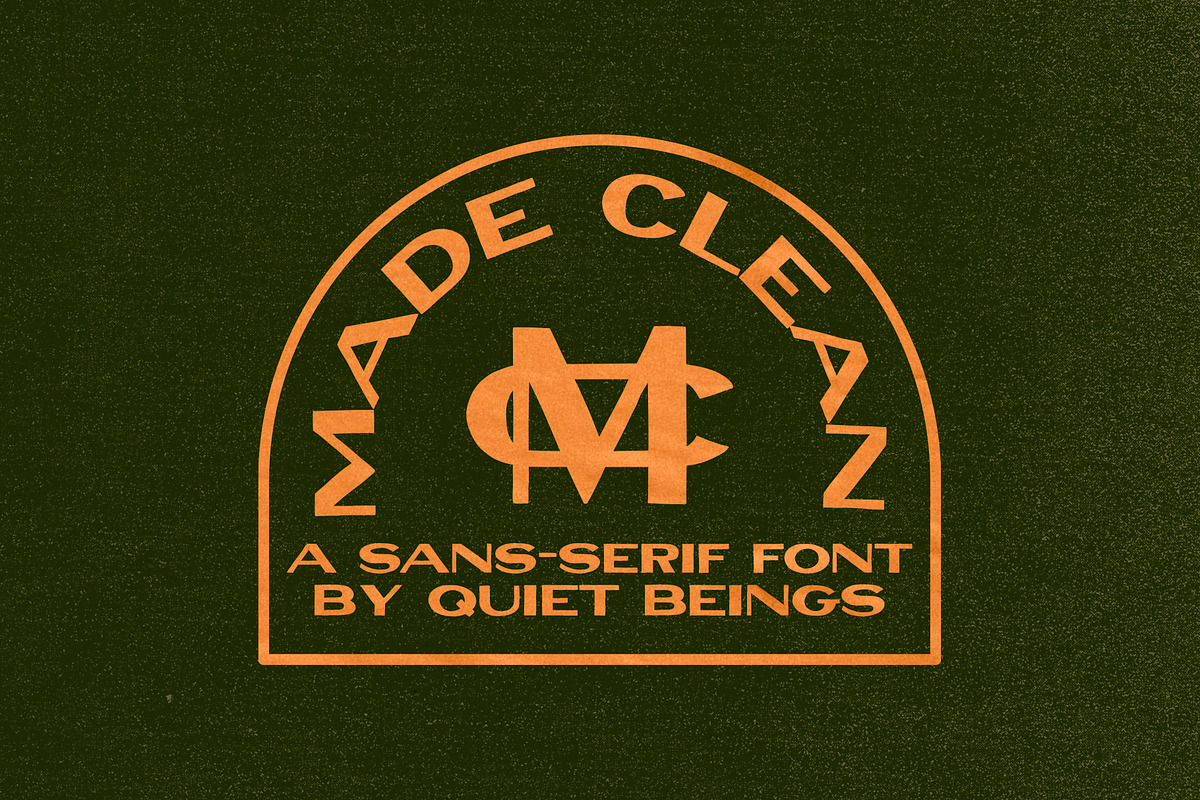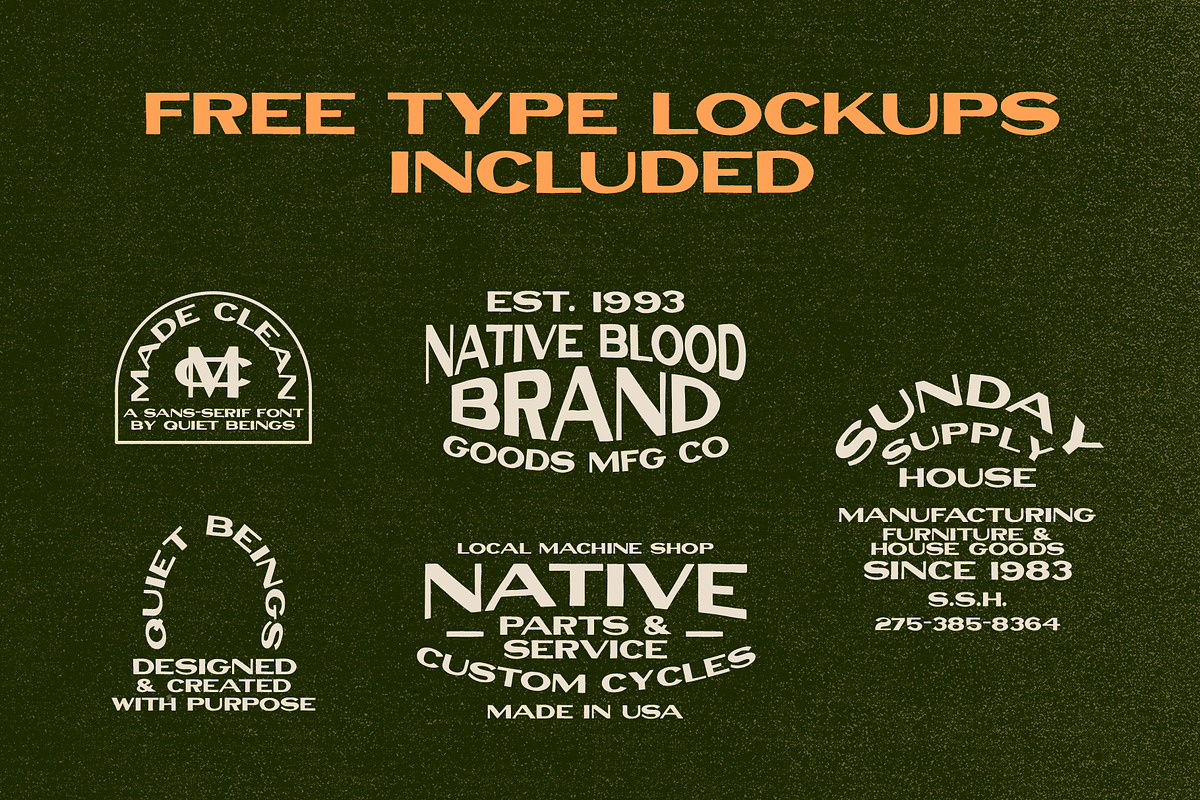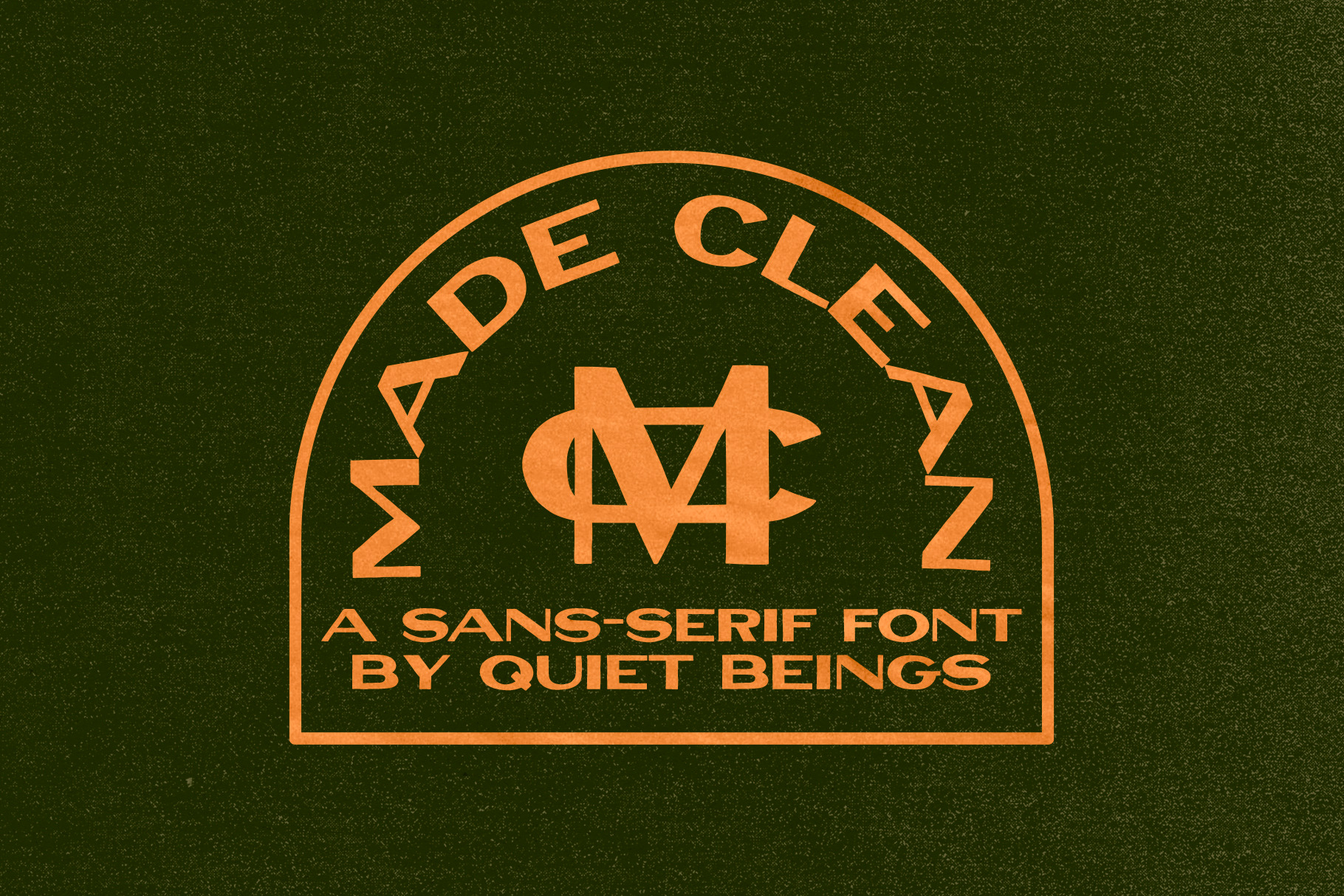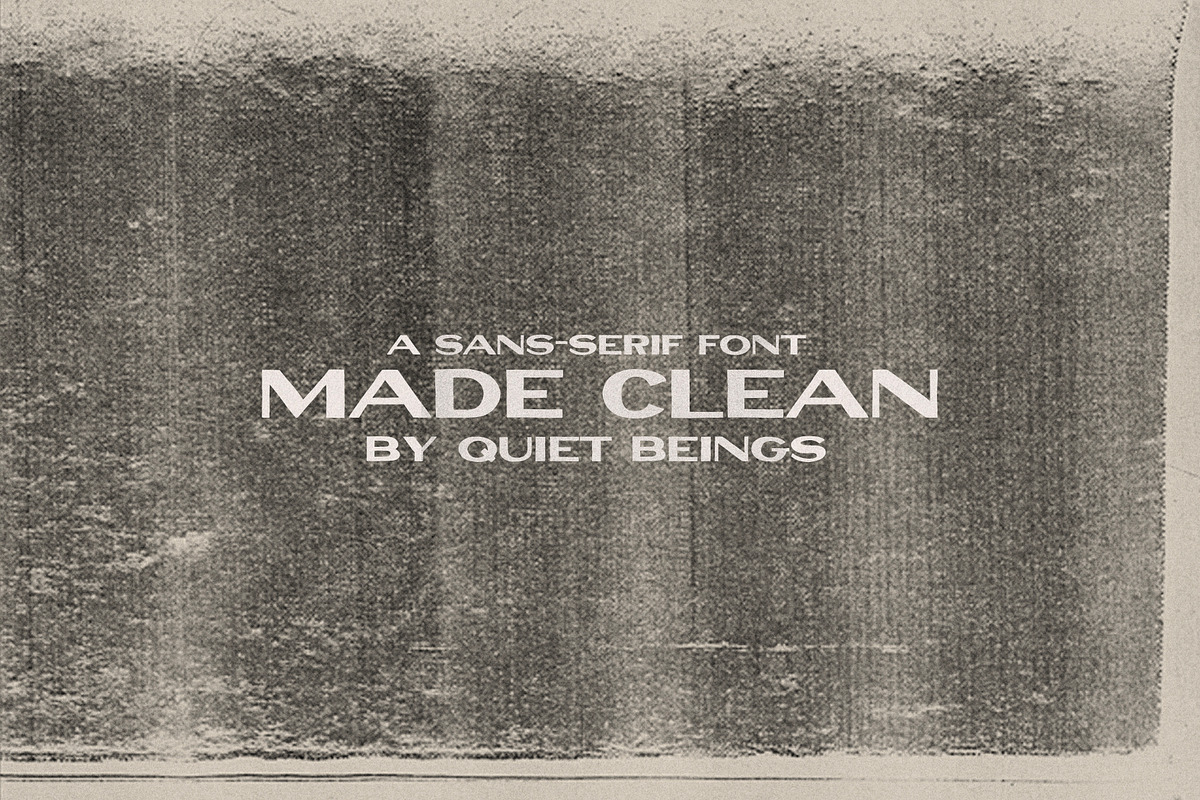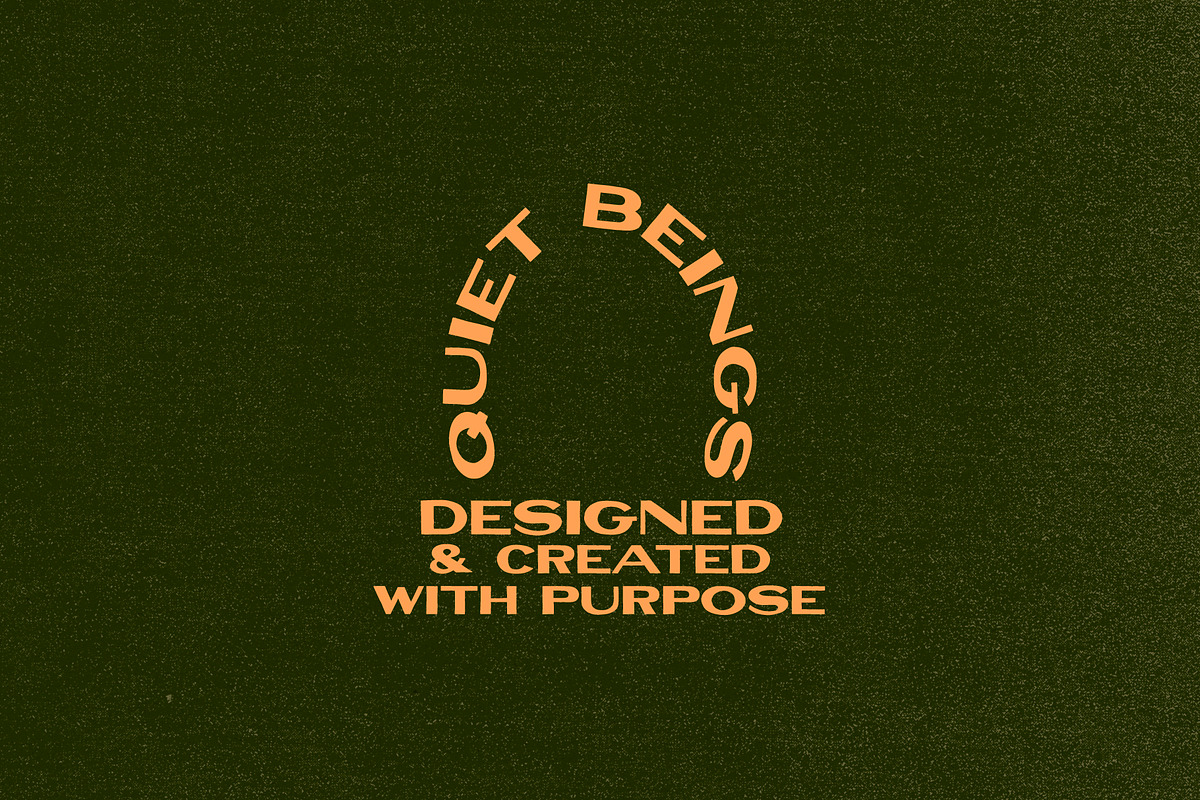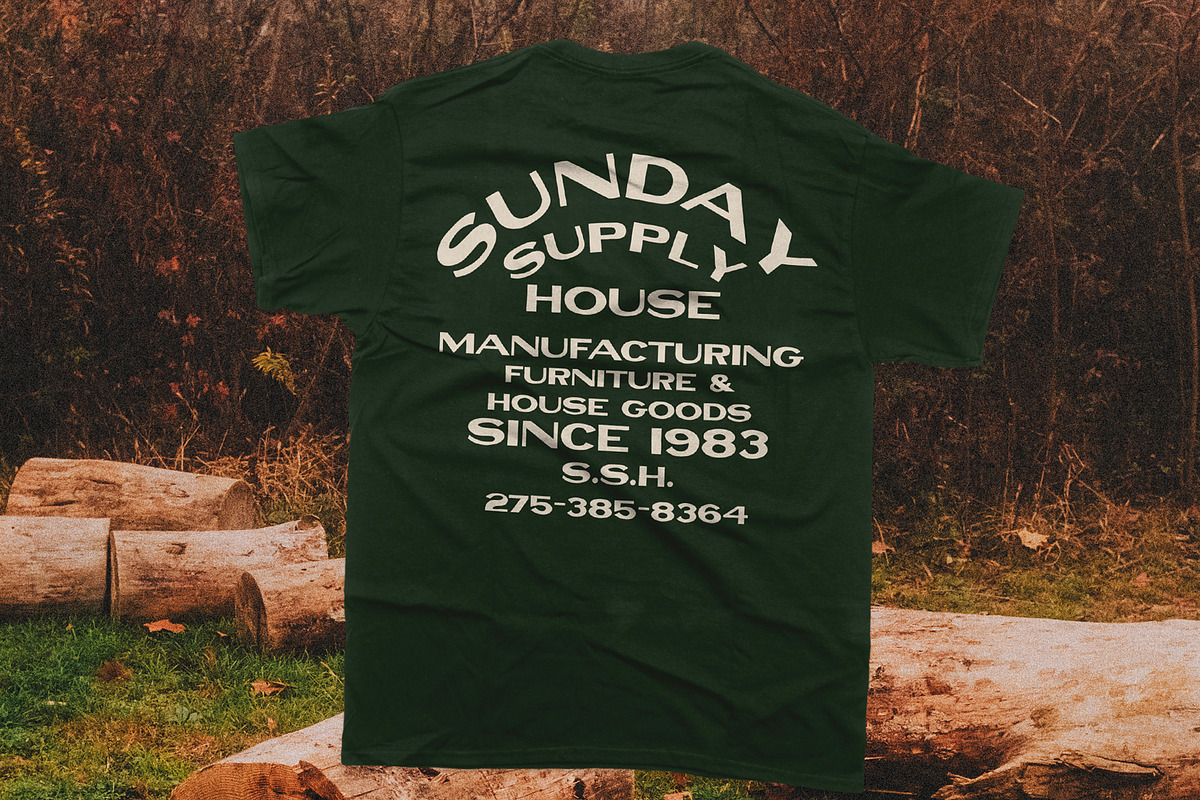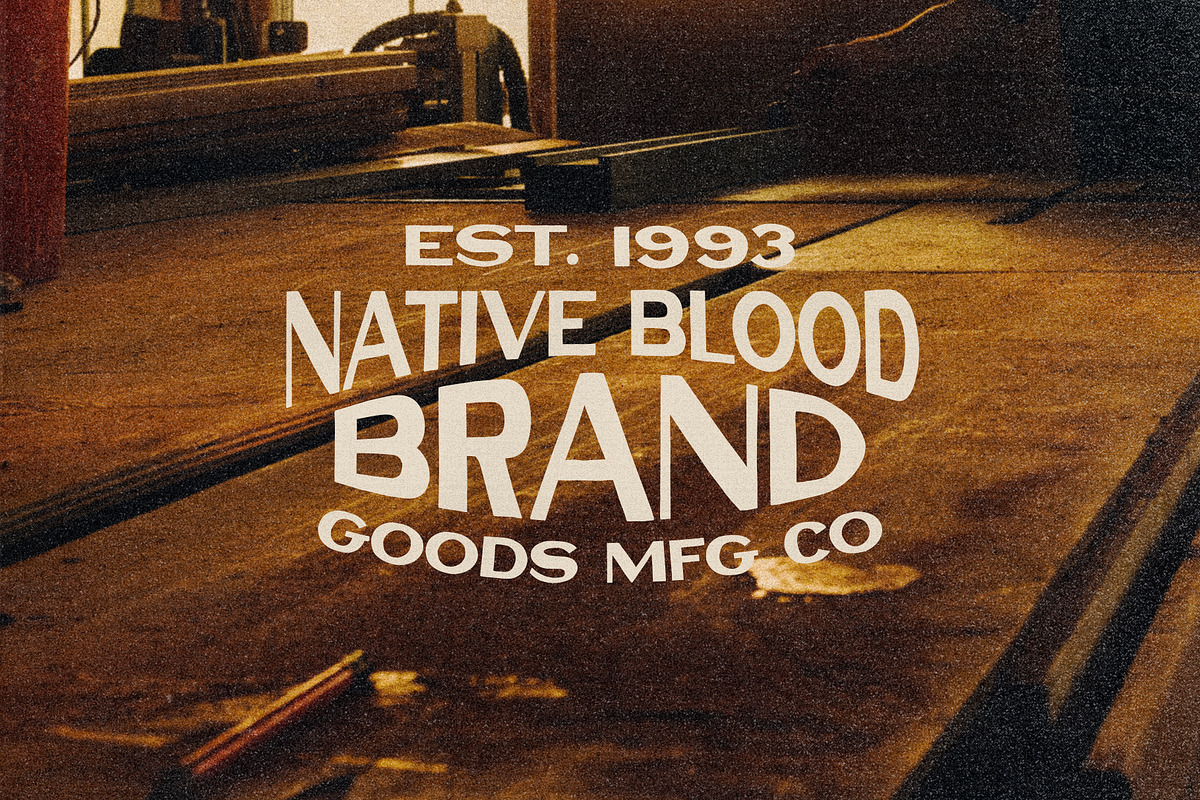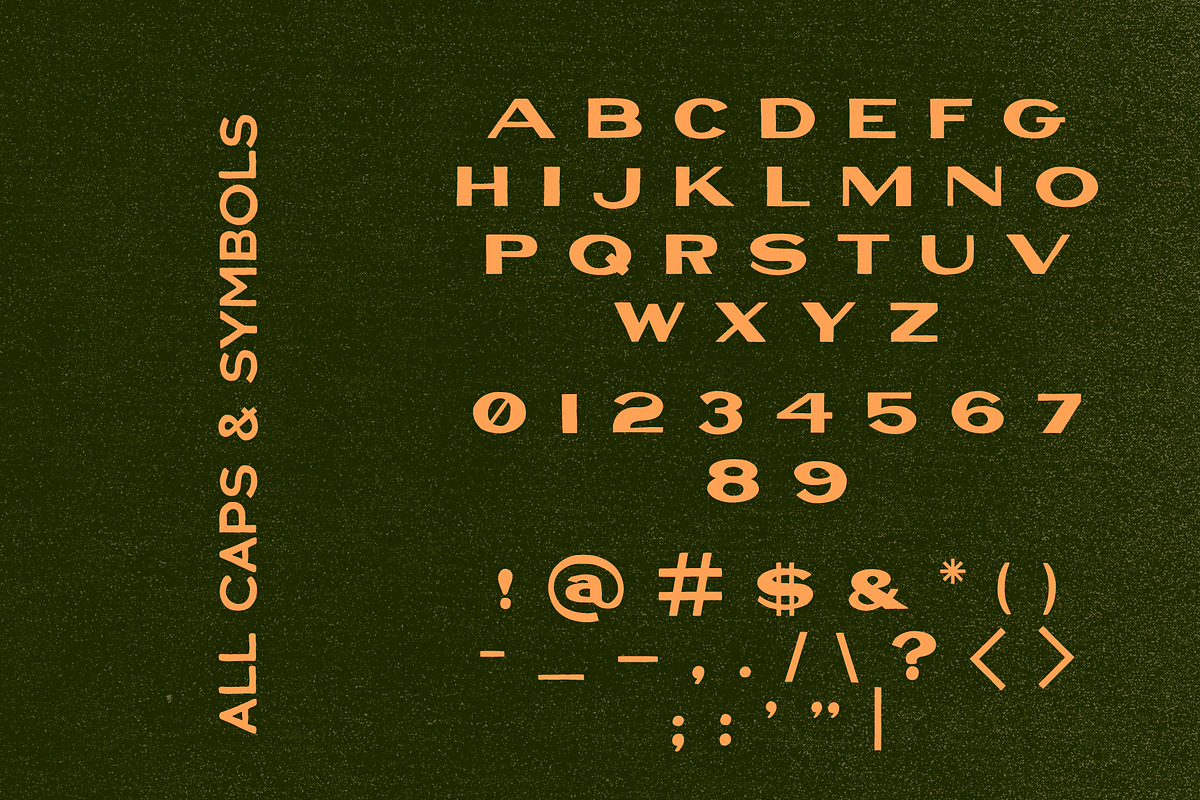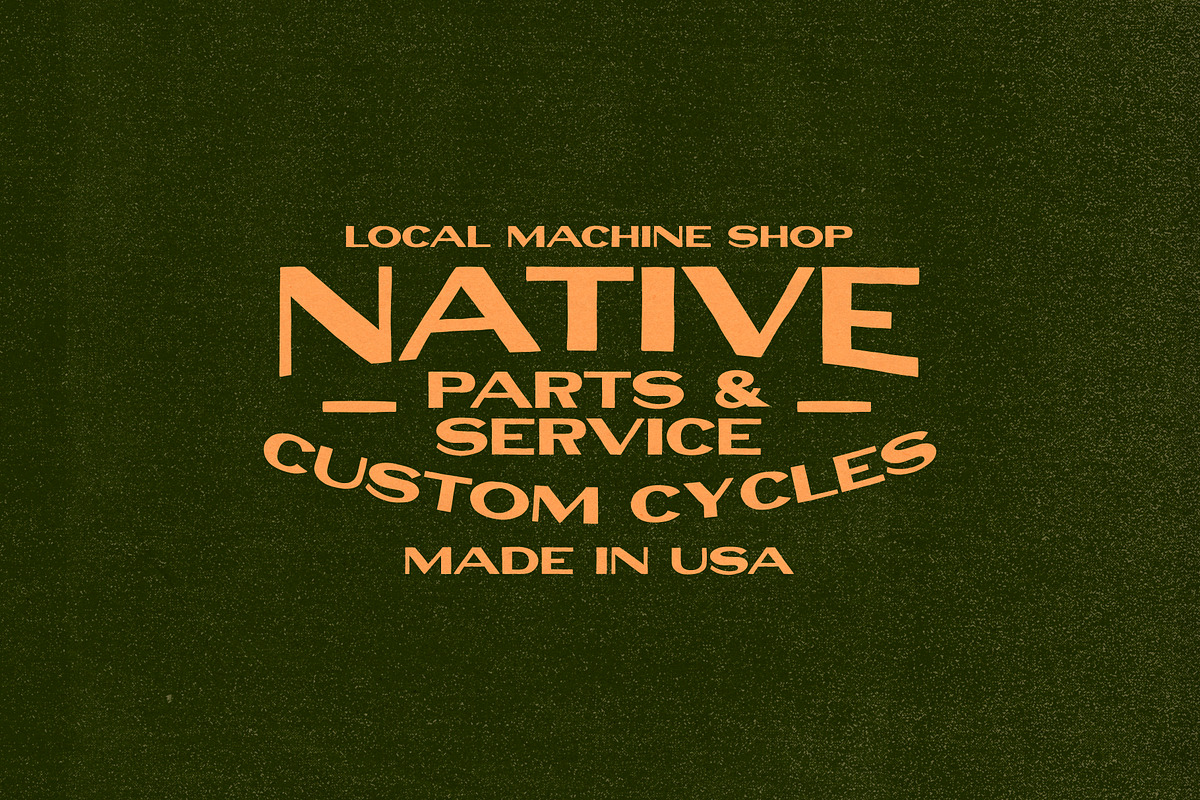
Made Clean - Vintage Inspired Font
Made Clean is a handdrawn, vintage inspired sans-serif typeface. Constantly inspired by signage of the early days, Made Clean pulls a direct reference from those old signs. Made Clean is caps only, with include symbols. Perfect for apparel, signage, packaging, & visual identities!
I wasn't happy with the lower case of this type, but I went ahead and included it anyway